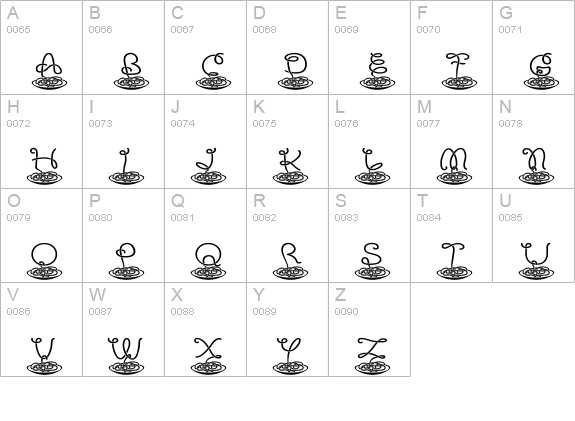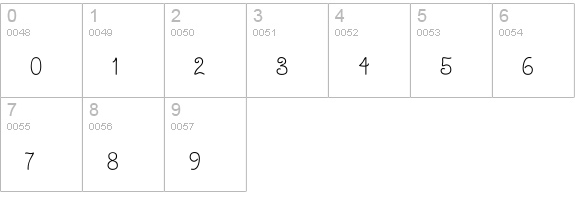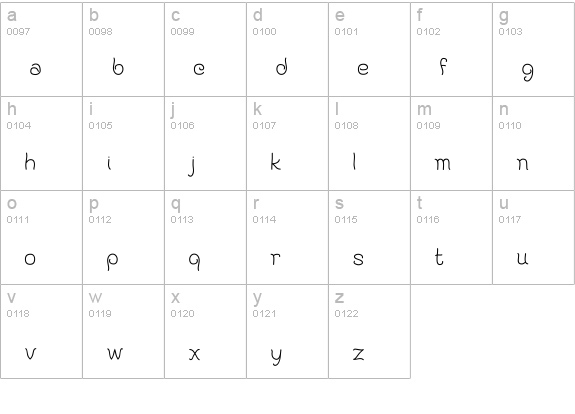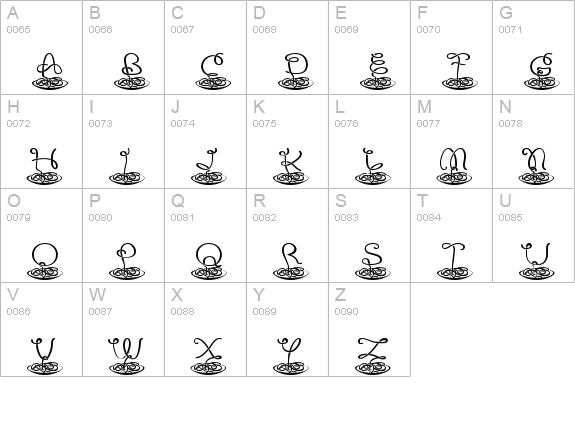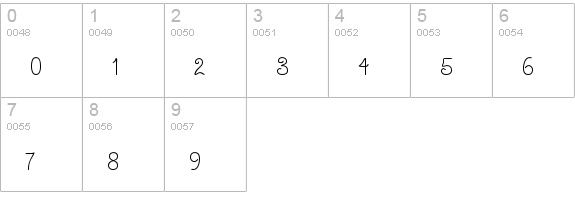
KAPastaAldente Font Details
KAPastaAldente font is a delightful and whimsical typeface that exudes charm and playfulness. Its unique design features rounded edges and a hand-drawn appearance, giving it a warm and inviting feel. This font is perfect for adding a touch of personality to your design projects, whether it be for a logo, packaging, or even a greeting card. Its versatility allows it to adapt to various themes and styles, making it a great choice for both casual and professional designs. What sets KAPastaAldente font apart is that it is completely free! That's right, you can freely download this amazing font at FontsMarket.com. This means that you can enjoy all the benefits of using a high-quality font without having to spend a dime. It's a win-win situation! With KAPastaAldente font, you can let your creativity run wild. Its playful and lively nature will bring a sense of joy and excitement to your designs. So why wait? Go ahead and download KAPastaAldente font from FontsMarket.com today and add a touch of whimsy to your next project.